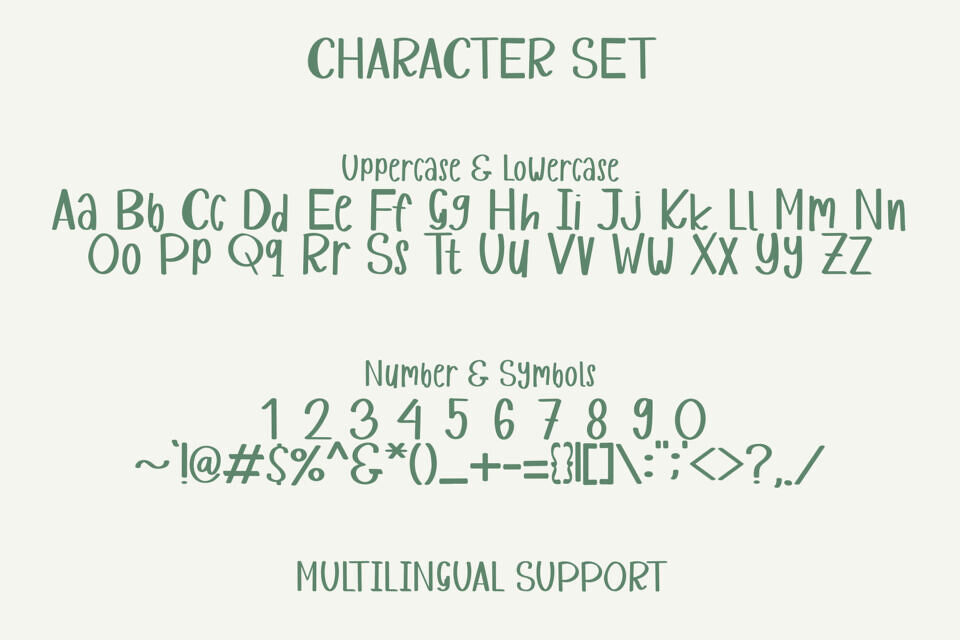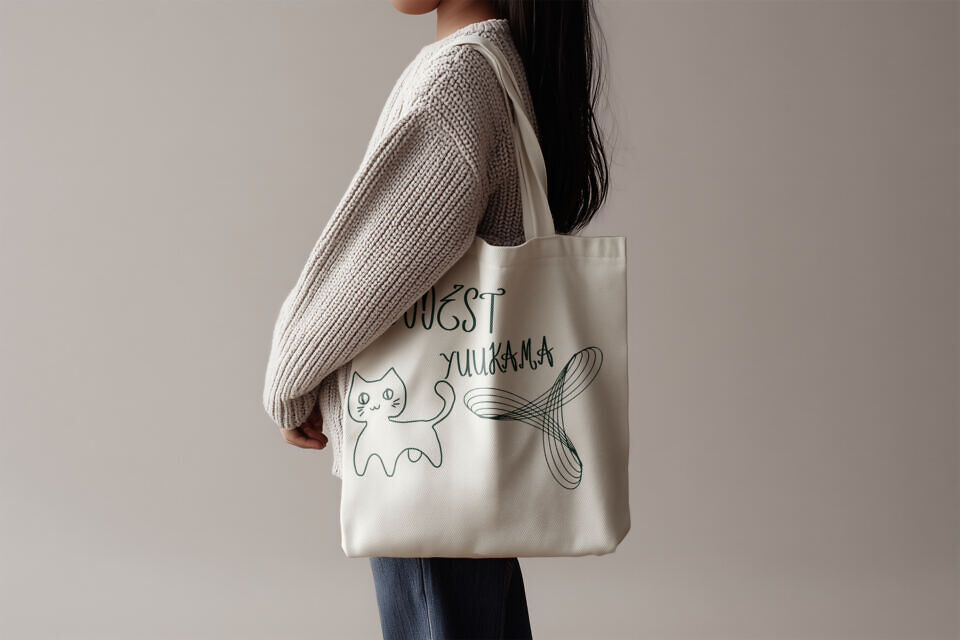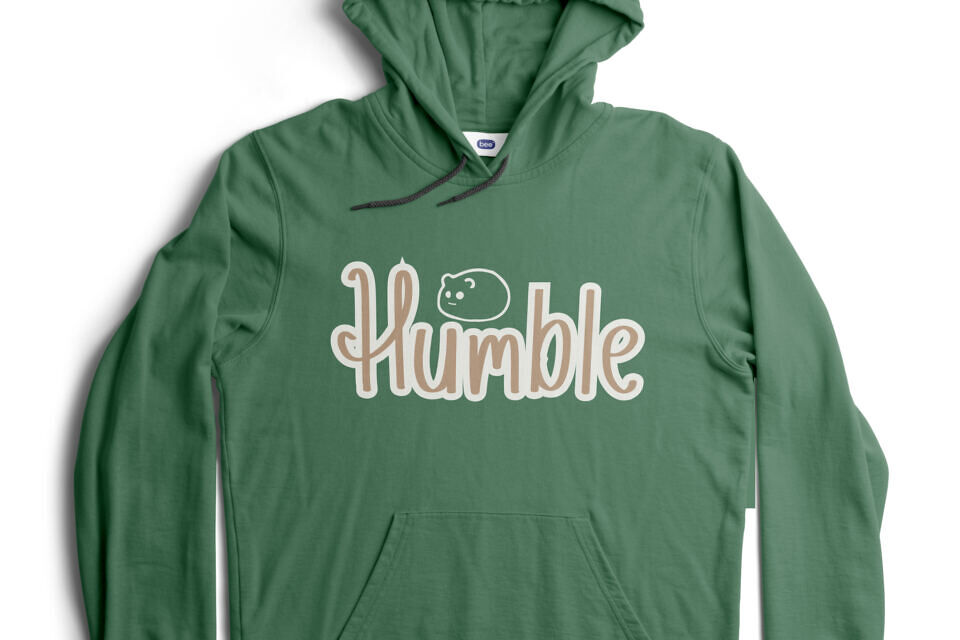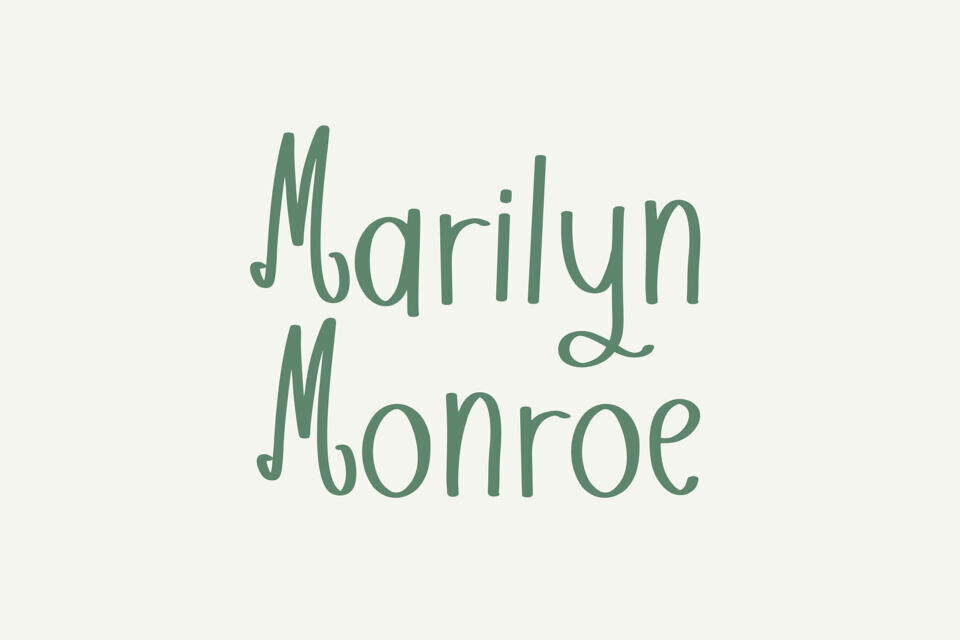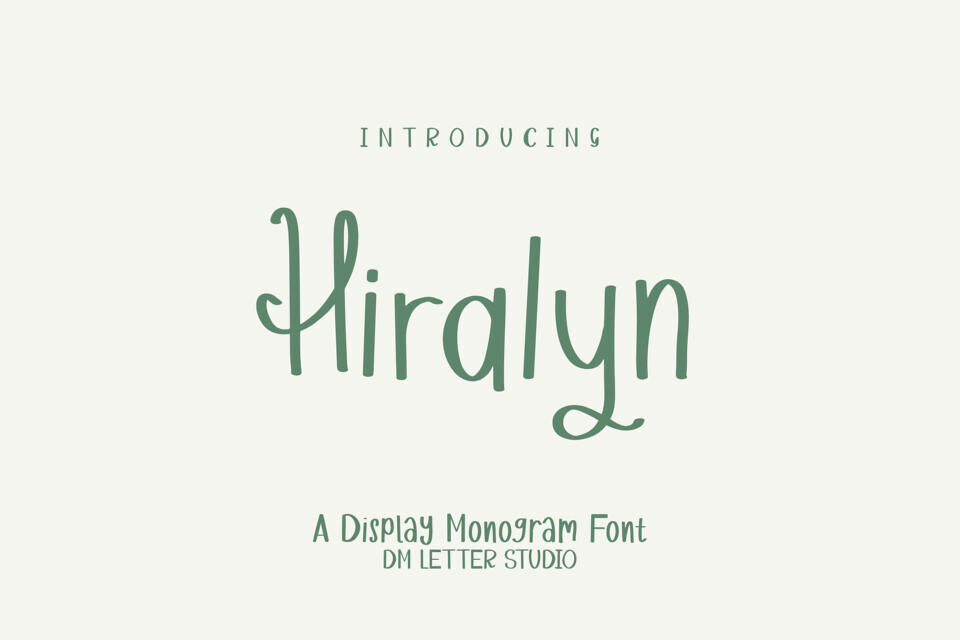
Hiralyn Font
Hiralyn is a graceful handwritten font with a modern signature feel. Inspired by flowing ink and calligraphic penmanship, this typeface captures elegance in every stroke. With its thin lines, natural movement, and stylish curves, Hiralyn is perfect for branding, quotes, product packaging, invitations, and digital projects that call for a personal, classy touch.
The letterforms are crafted to look effortlessly handwritten—ideal for beauty brands, wedding logos, fashion lookbooks, or motivational quotes shared on Instagram. Whether you’re designing social media content, crafting planner printables, or building a logo with a handwritten vibe, Hiralyn gives your message a refined and professional look.